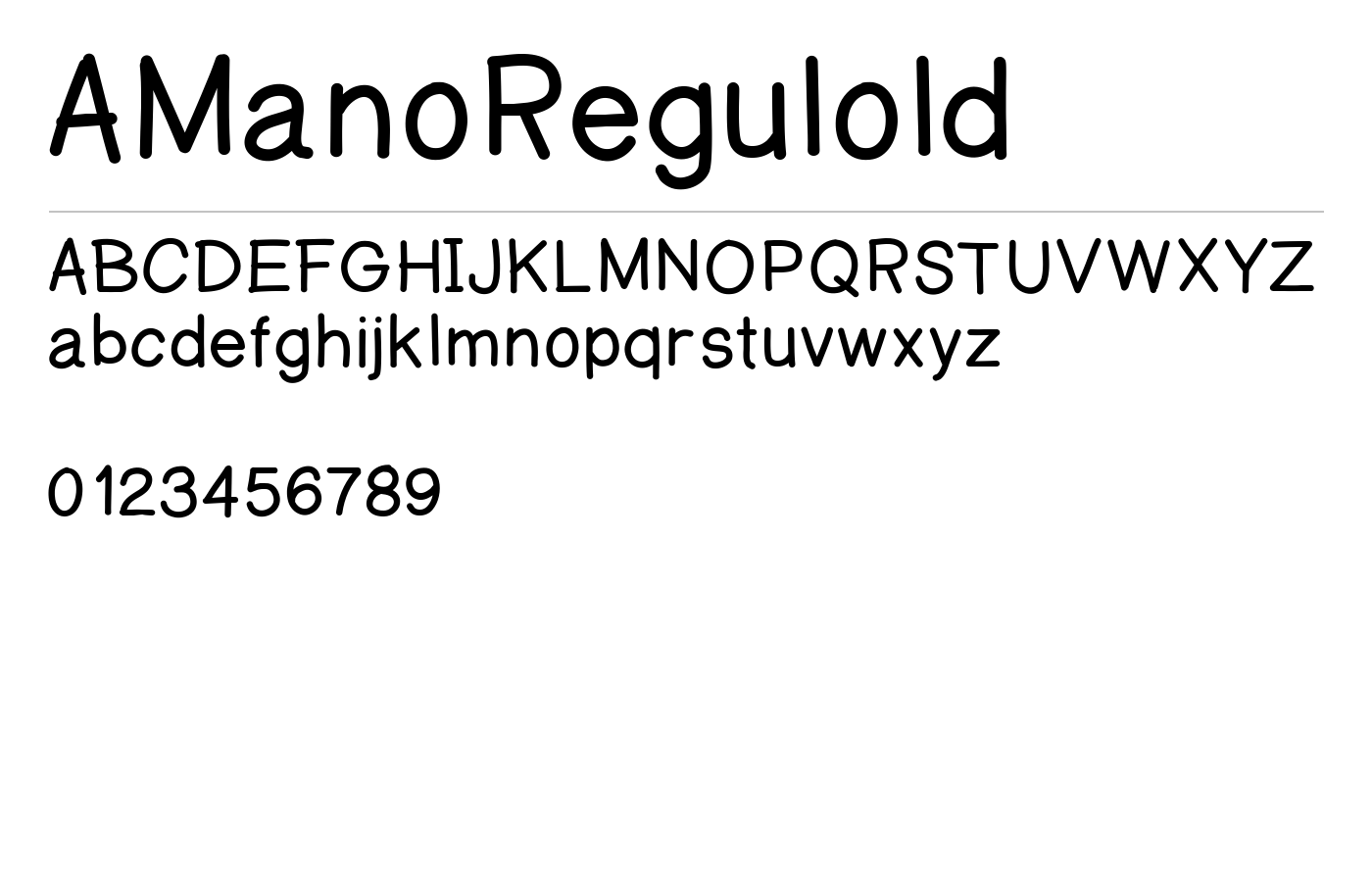
AmanoRegulold is a playful and casual sans serif font that mimics a hand-drawn style with soft, rounded edges and a slightly irregular stroke. Its light to regular weight and open, airy spacing give it a friendly and approachable feel, making it ideal for informal designs, children’s books, or creative projects seeking a personal touch. This font works well in headlines, logos, and packaging where a warm, human-centered vibe is desired.
AManoRegulold Font
About AManoRegulold Font